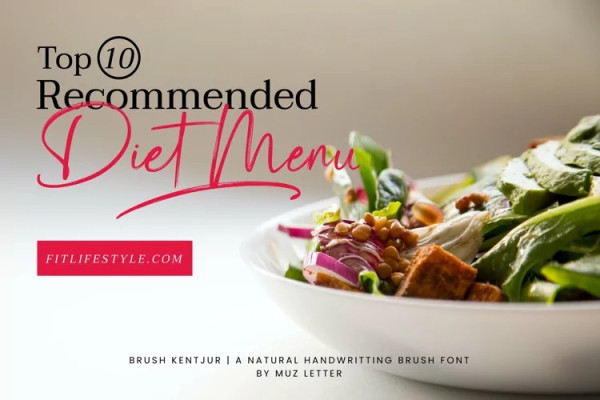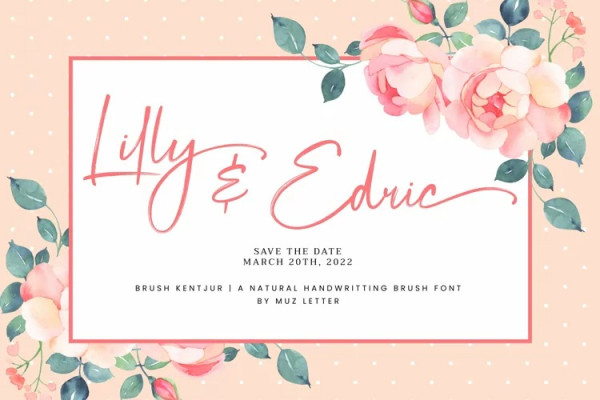
Brush Kentjur Font
Brush Kentjur Font! It’s a Natural handwritting brush font with an aesthetic and expressive touch. This font is an attractive and charming choice for signature style logos, catchy branding, display text, handwritten quotes & letters, and blog / social media posts.